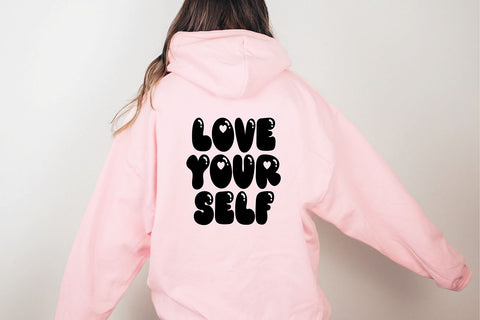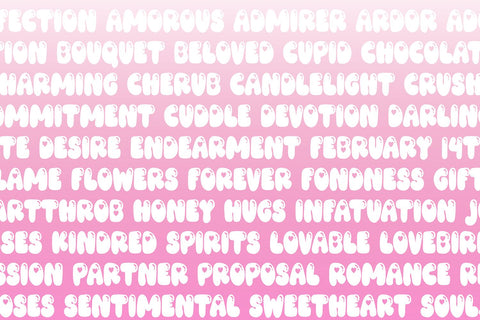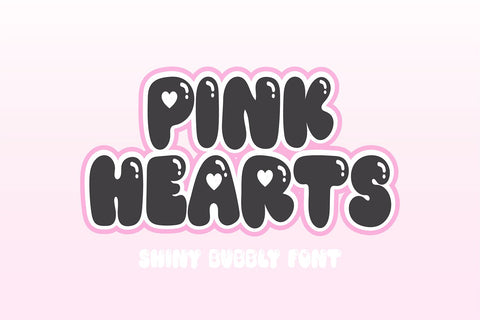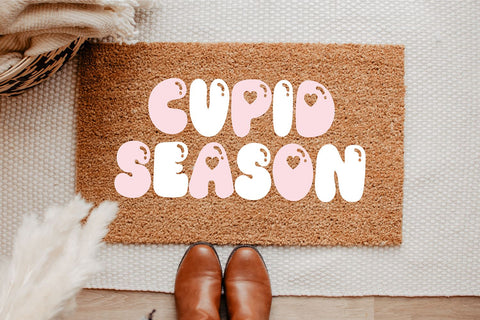
Pink Hearts Valentine Font
PINK HEARTS Valentine's Day font
This font was made specifically for your Valentine's/Wedding projects. Use it for Valentine's cards, crafts for decor, invitations, and more!